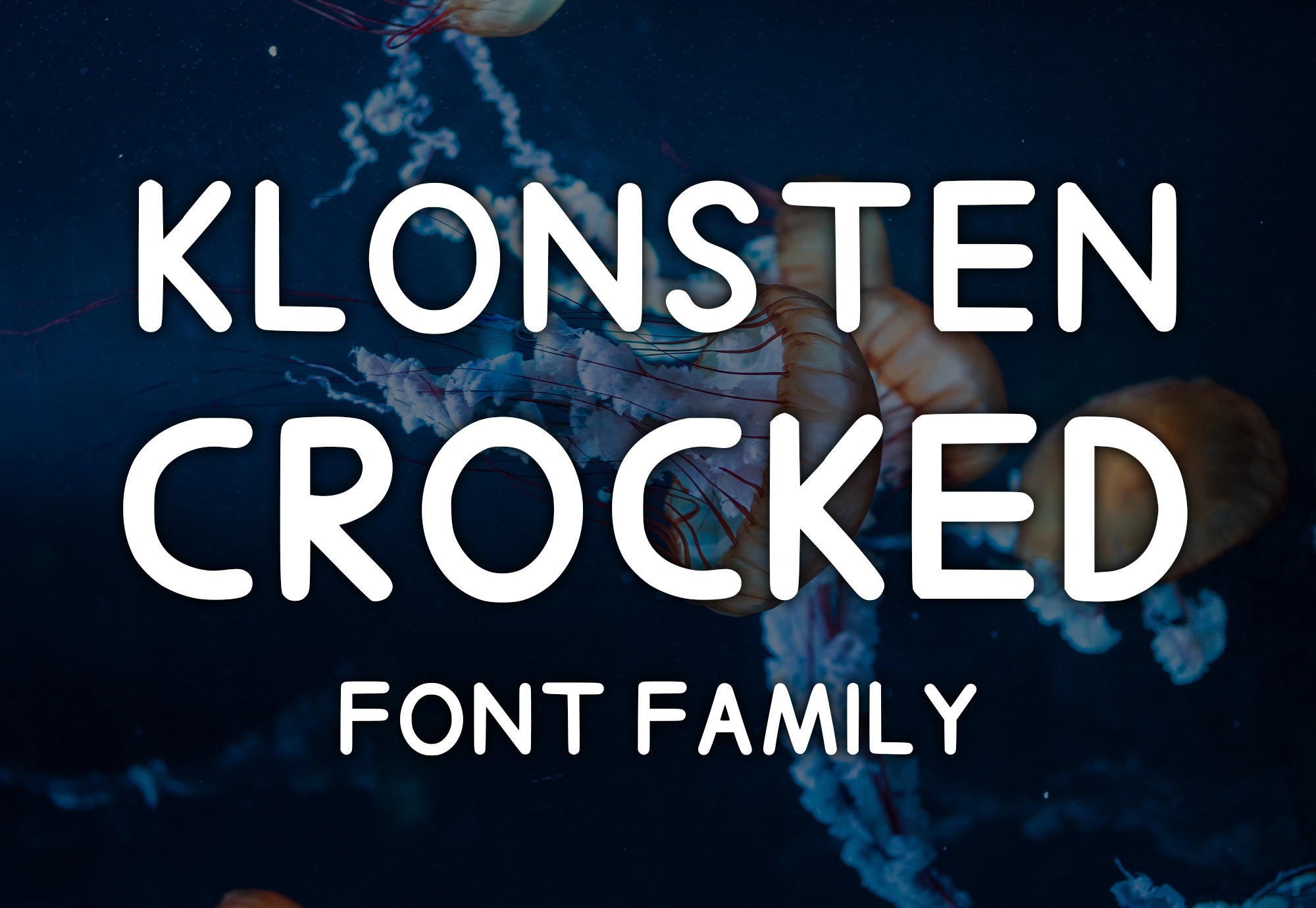
Hand drawn fancy font
1 elegant handwritten digital font as TTF + WOFF file for digital use. Perfect for graphic design, flyer, web design, book cover, greeting card, print on demand, poster, banner or business card.
📨You will receive: 1 cool digital font named Klonsten Crocked as TTF and WOFF file. Can also be used as a web font. This font consists only of letters from A-Z.